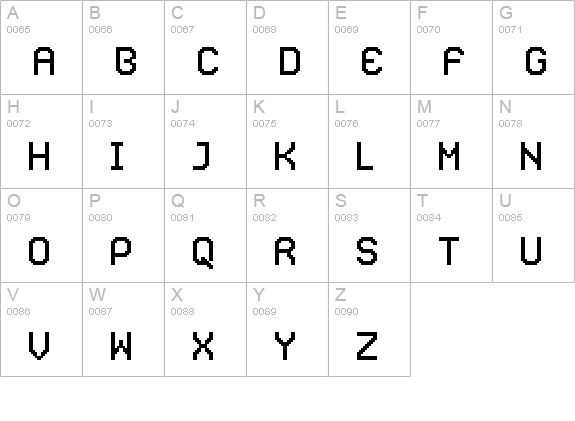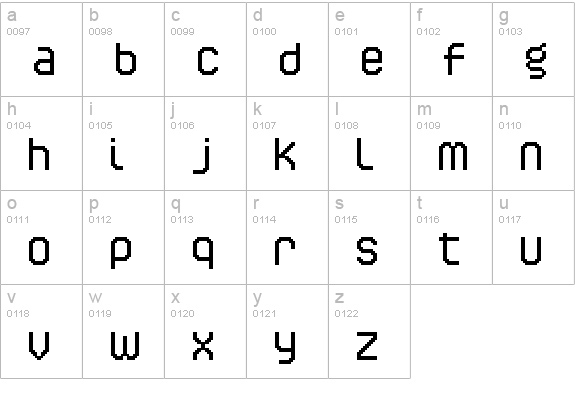
Caliper Stairstep font is a uniquely modern and stylish typeface that will add a touch of sophistication to any design project. Its sleek and elegant design features sharp angles and clean lines, giving it a contemporary and cutting-edge feel. The font is perfect for use in branding, advertising, posters, and any other creative project that requires a bold and eye-catching font. The best part about Caliper Stairstep font is that it is completely free to download at FontsMarket.com. You can easily access this versatile font and incorporate it into your designs without any cost. With its distinctive look and versatility, Caliper Stairstep font is sure to make a statement and elevate the visual appeal of your projects. Download it today and unleash your creativity with this stunning and free font!